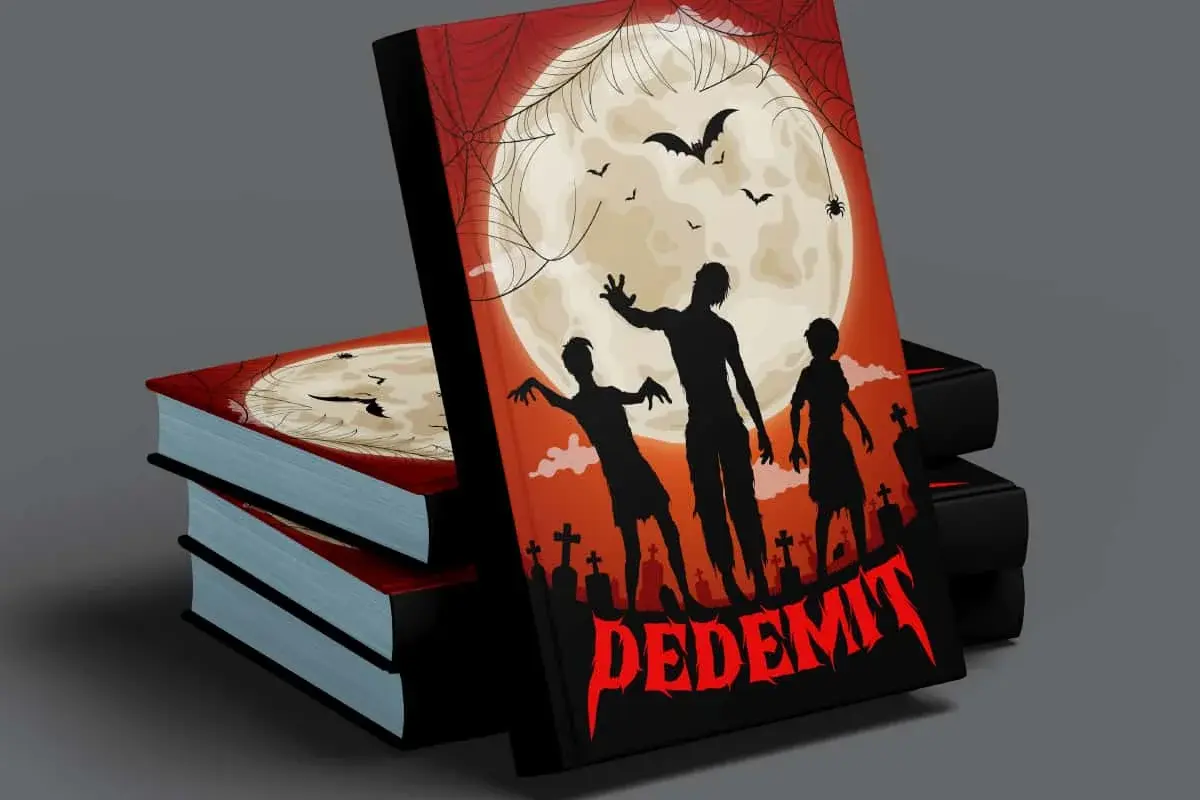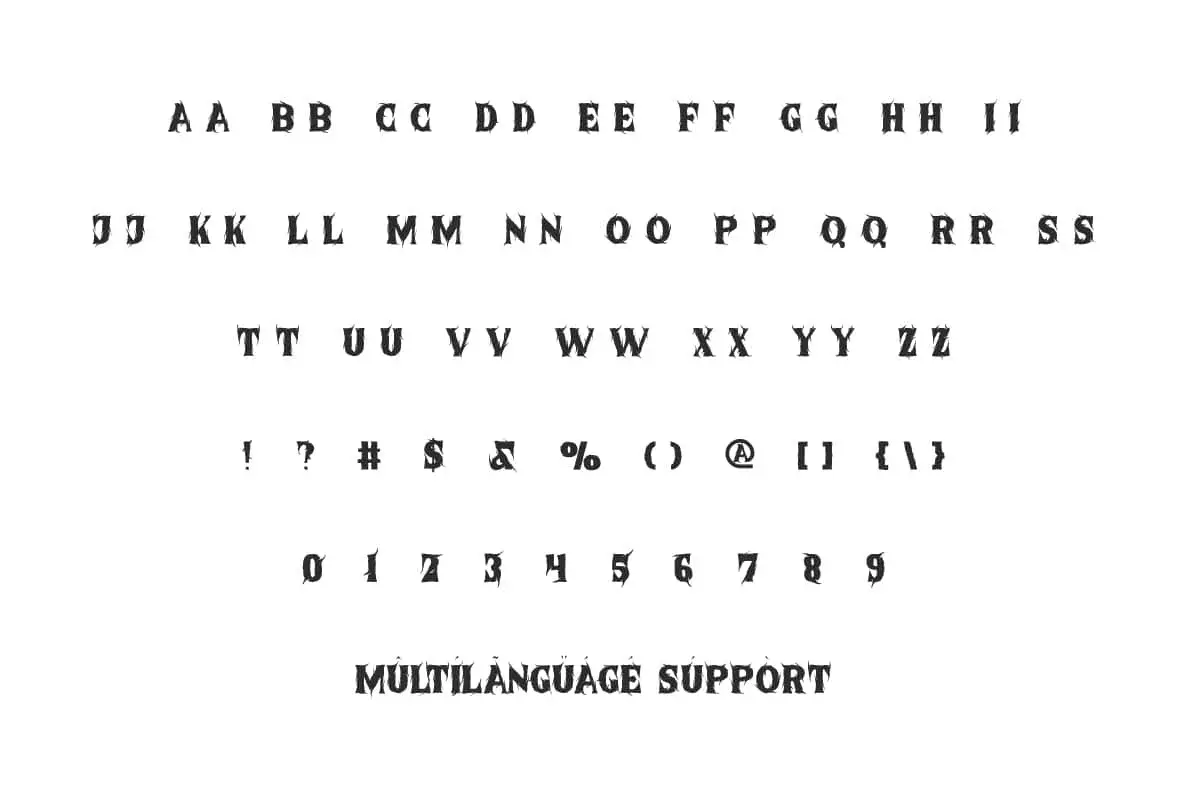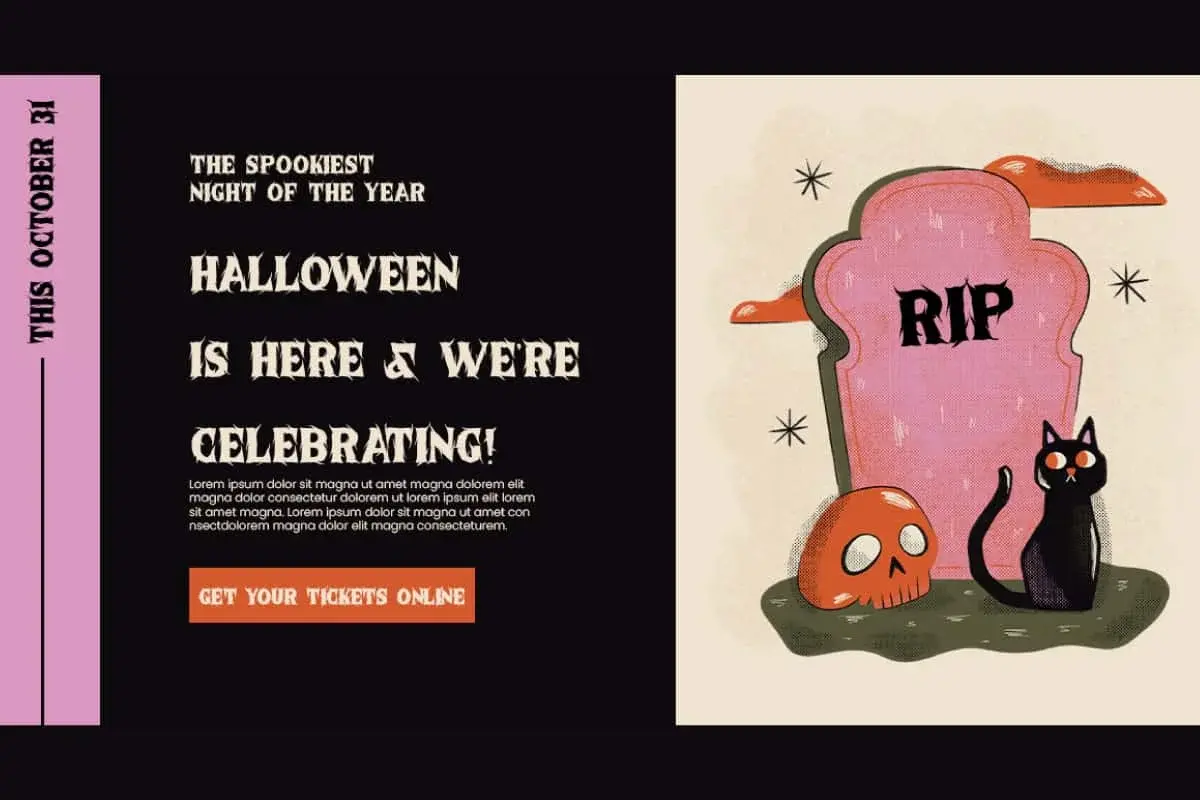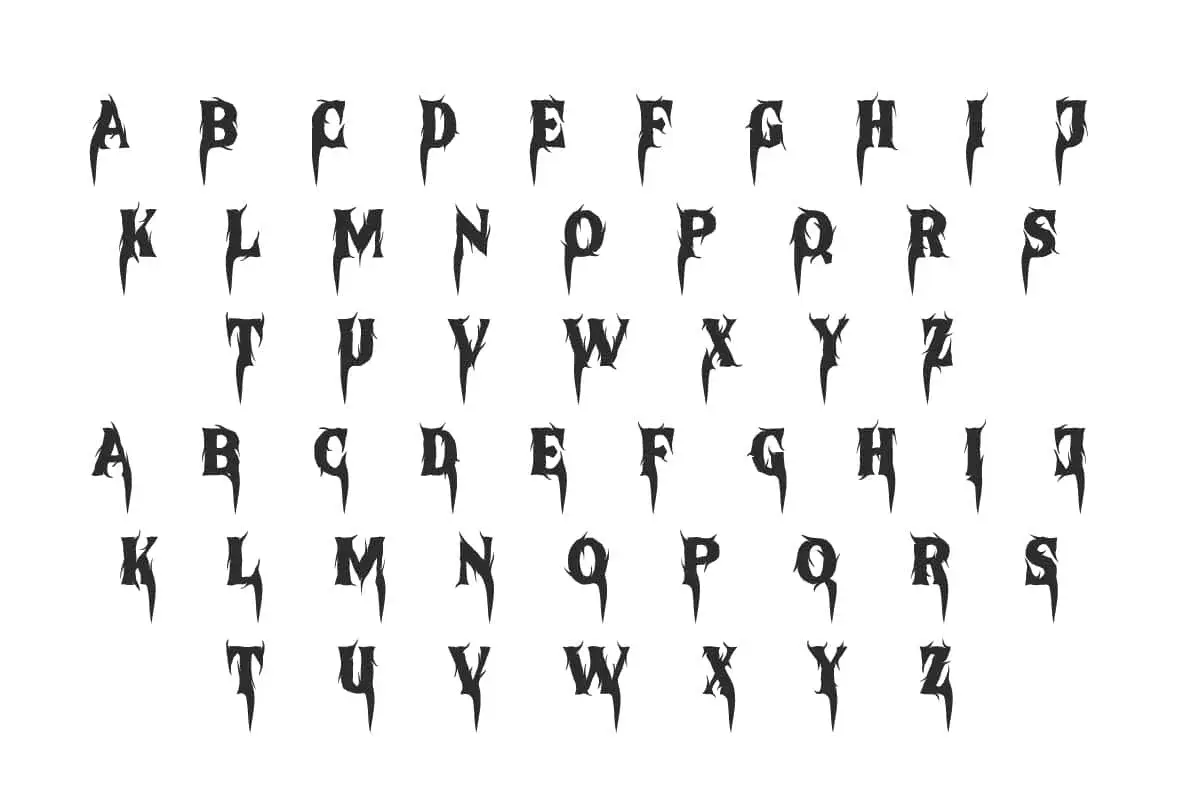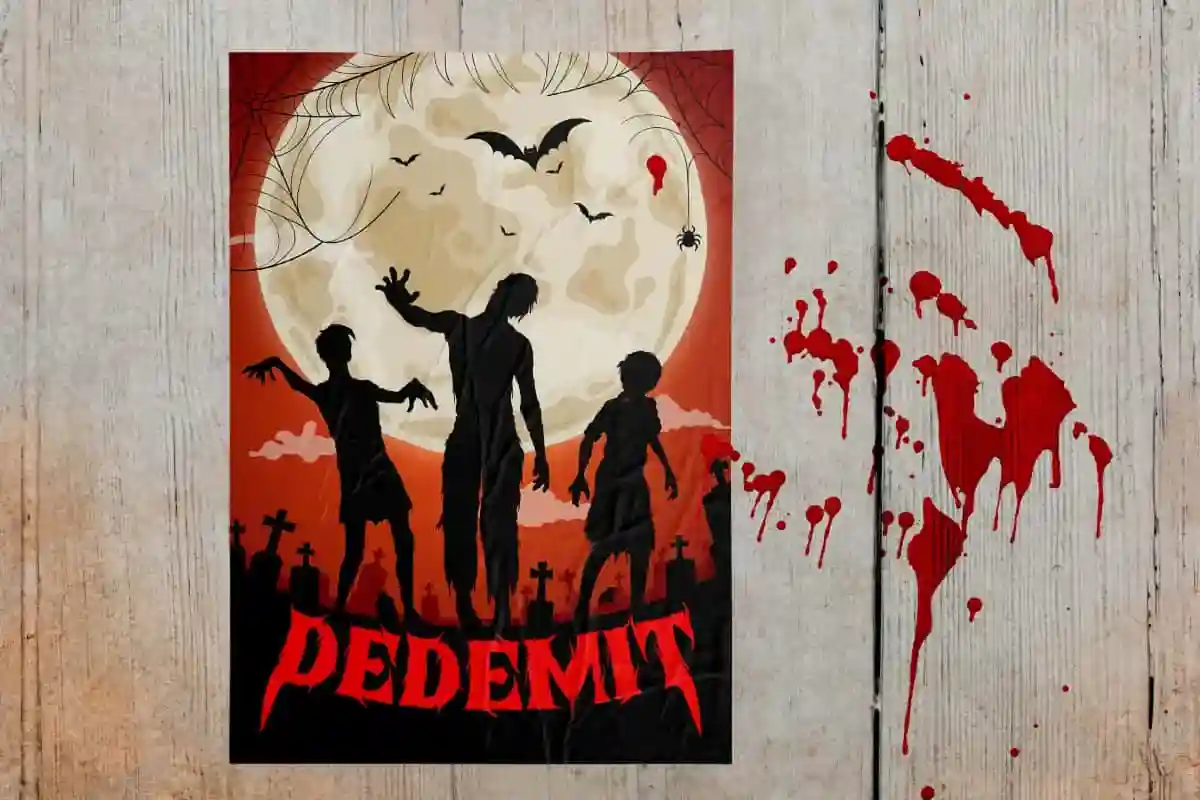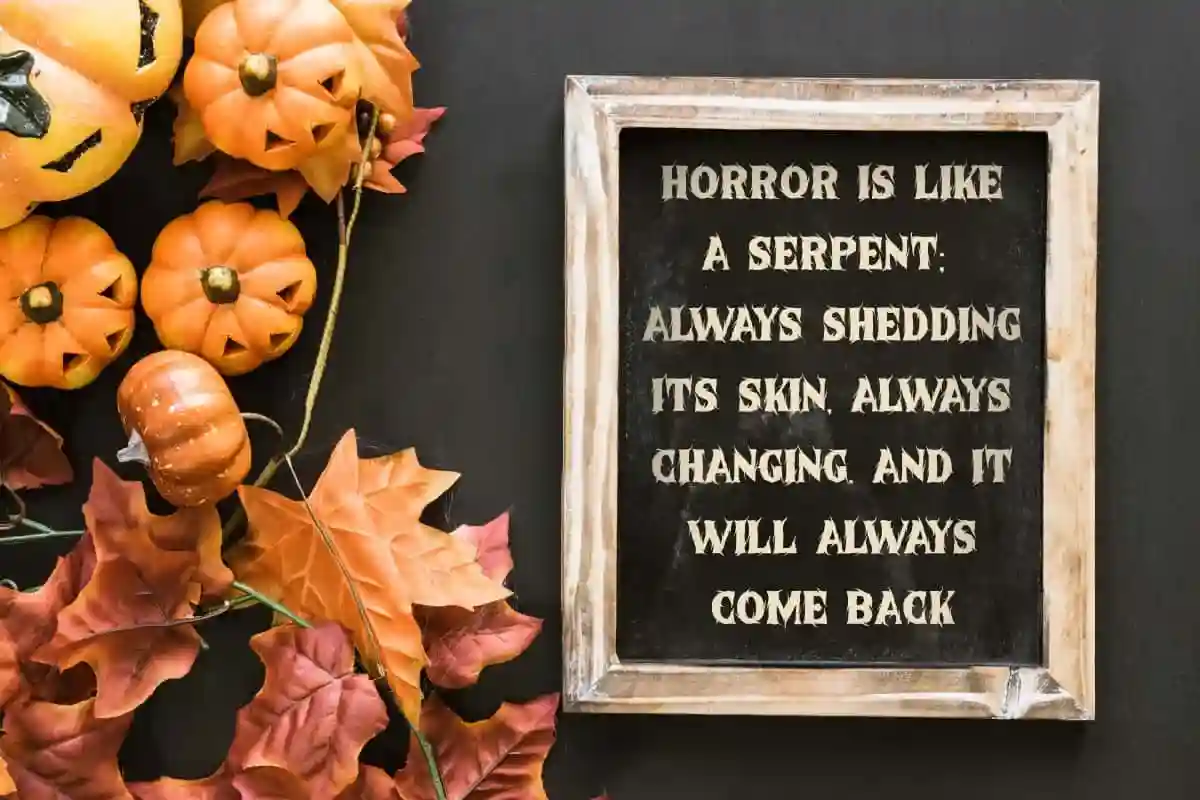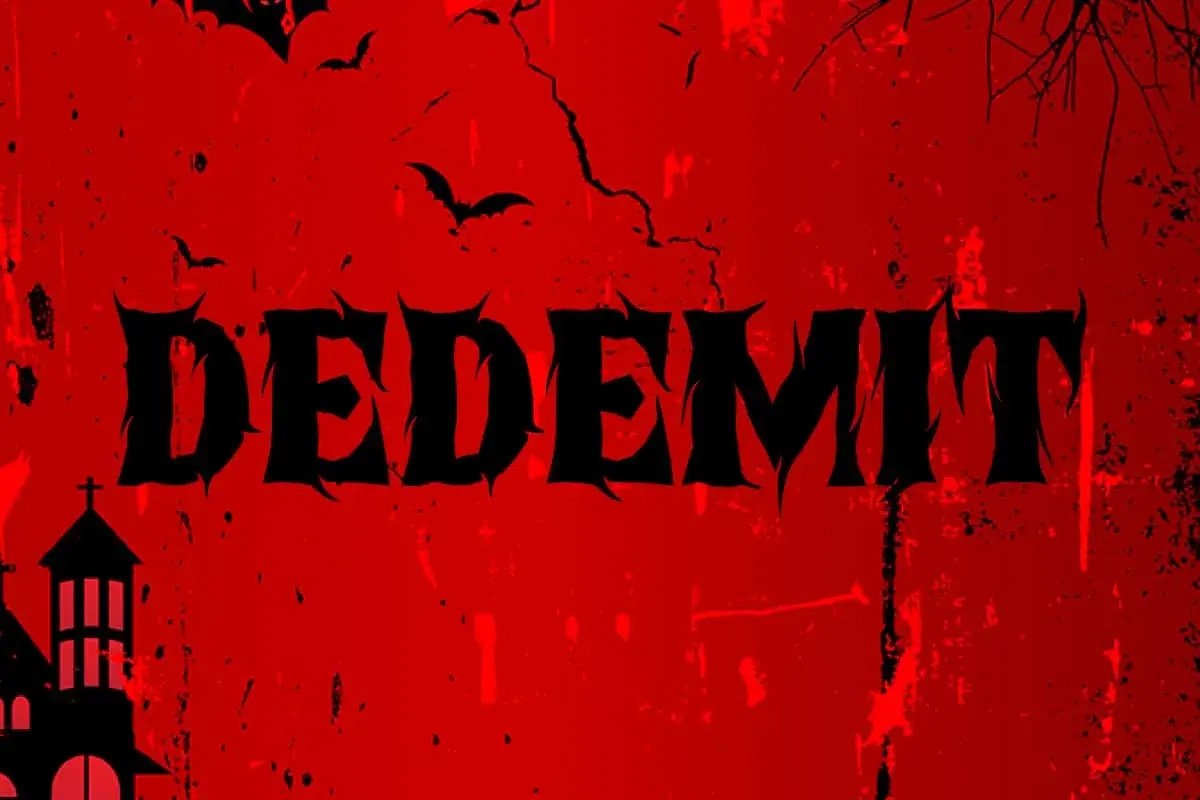
Dedemit Font
Dedemit Font is a horror display font with uniquely designed characters and additional alternates. Perfect your fear filled design with this!
Dedemit Font is a spooky display font designed to scare with crazy sharp thorn details. This adds a unique value to this font which also comes with alternate. It can be used for banners, blogs, brand logo, brochure, cover, headers, headline, invitation, label, mockup, packaging, poster, printed materials, quotes, stationery, stickers, template, title, website, and others.
Dedemit Font contains a complete set of ALL CAPS basic characters for both Uppercase and Lowercase, Numbers, Punctuation, Symbol and Alternate. This font is perfect for use in horror-themed designs. Perfect your gripping ideas using this font and combine the available alternatives. Also perfect for accessories and trinkets stuff, fashion, film, graphic design, Halloween event, movie, photography, printing, publisher, web designer, etc.